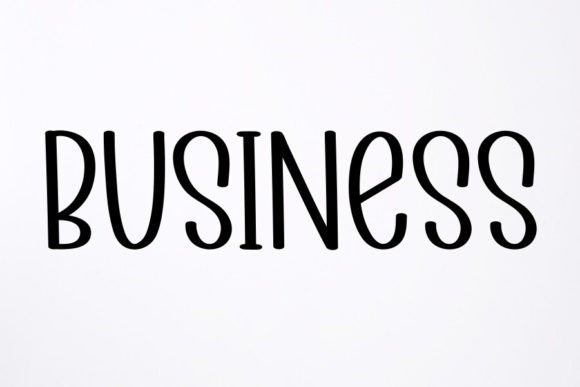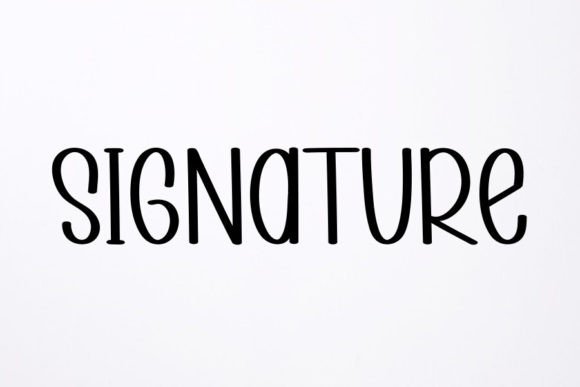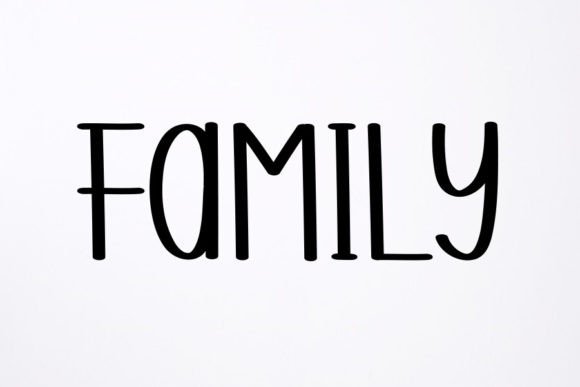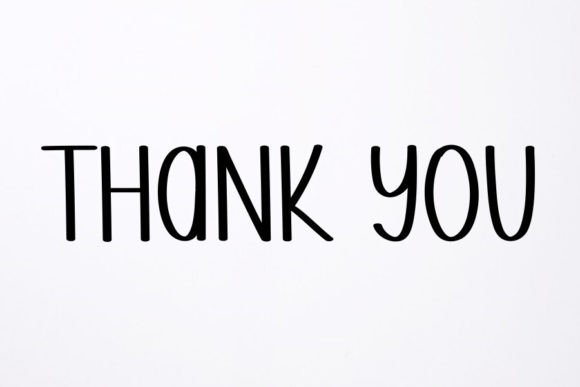
Where Typography Meets Personality
As designers, we’ve all been there – staring at a blank canvas, trying to find the perfect words to convey our message. It’s the moment when the right font can make all the difference. For me, it’s the instant I discovered the Bubble Font – a modern and charming handwritten font that exudes elegance and personality. Its unique blend of sophistication and whimsy has a way of elevating any design, making it perfect for upscale invitations, personal branding, and chic editorial designs.
With its graceful, flowing strokes and refined character, the Bubble Font is a valuable tool for designers looking to add a touch of warmth and personality to their projects. Whether you’re creating a wedding invitation or a brand identity, this font is sure to make a lasting impression. By incorporating the Bubble Font into your design, you’ll be able to convey a sense of sophistication and style that’s hard to find with other fonts.
Bubble Font Key Features
- Unique Characteristics: The font features a playful, rounded design with a “bubbly” effect, making it perfect for creative and fun applications, such as children’s books, advertisements, and social media graphics.
Bubble Font Review
Overall, I think Bubble Font is a fun and unique font that can add some personality to your designs. ✨ It’s perfect for creating a playful and lighthearted atmosphere in your projects.
- Easy to read, even at smaller font sizes ✨
- Wide range of font styles and sizes available ✨
- Perfect for creating a whimsical and childlike feel in your designs ✨
- Can be used for a variety of projects, from digital to print designs ✨
- May not be suitable for formal or professional projects ⚠️
- Can be difficult to read in certain lighting conditions ⚠️
- Limited international language support ⚠️
- May not be compatible with all operating systems or devices ⚠️
Overall, I would recommend Bubble Font for projects where you want to add a touch of playfulness and whimsy. However, be sure to consider the limitations and ensure it’s the right fit for your design goals.
The Bubble Font is commonly used for:
- Children’s party invitations
- Wedding invitations
- Graduation announcements
- Party decorations